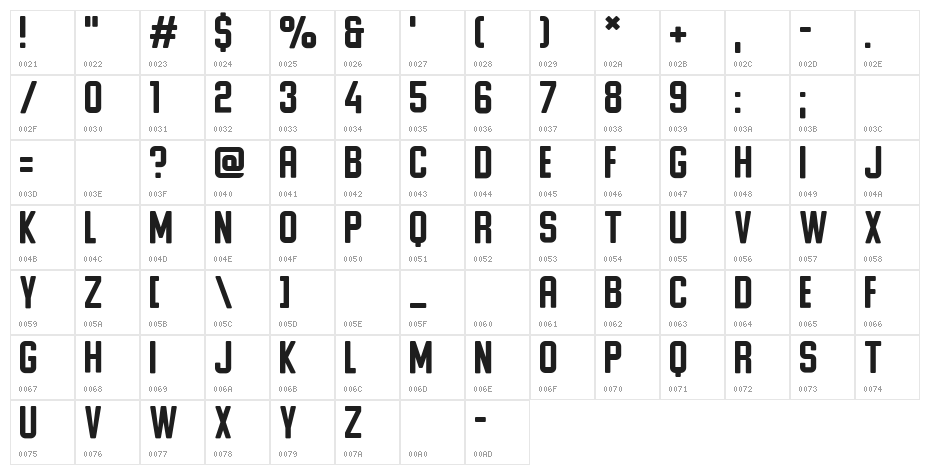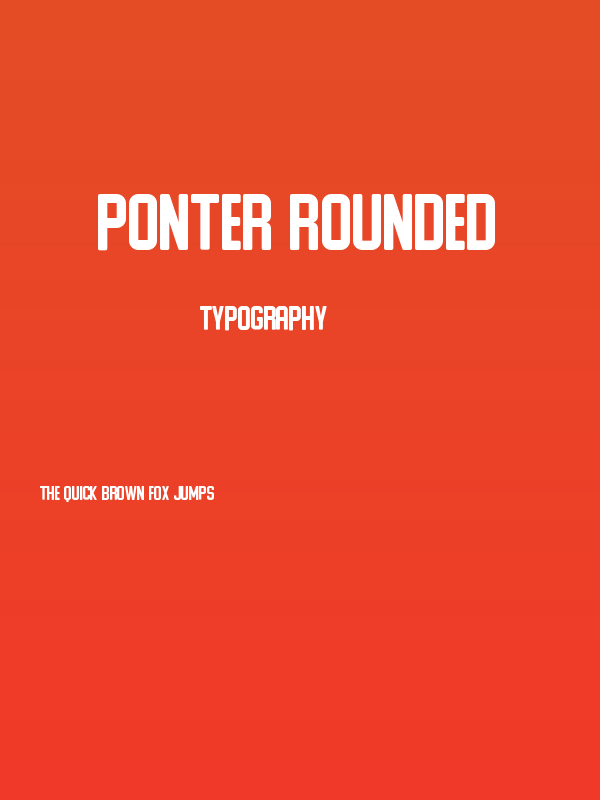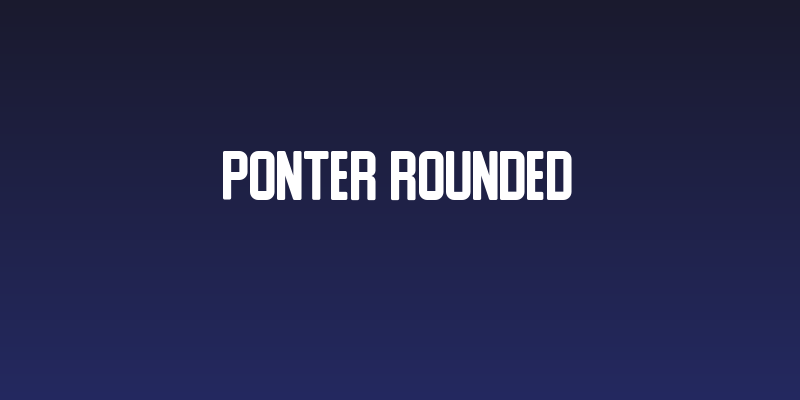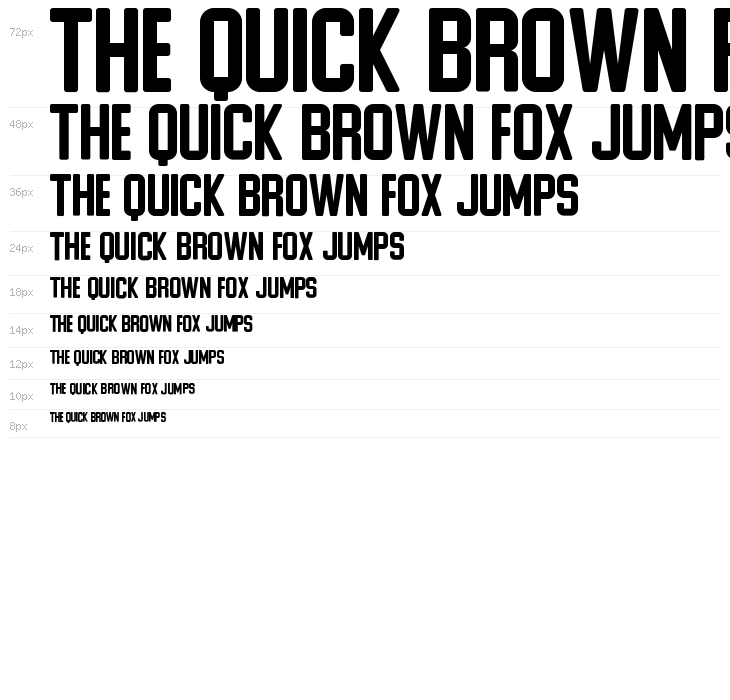
Ponter Rounded Font
Ponter Rounded Description
This font features a bold and rounded style, characterized by its thick strokes and smooth curves. The letters are uniformly wide, giving it a strong, impactful presence. The rounded edges soften the overall look, making it approachable while maintaining a modern aesthetic. The numbers and special characters follow the same design principles, ensuring consistency across all glyphs. This font is highly legible and versatile, suitable for various design applications. Its boldness makes it stand out, while the rounded corners add a friendly touch, balancing professionalism with approachability.
| Use Case | Headlines, Logos, Signage |
| Proposed Projects | Ideal for branding, signage, headlines, and any project requiring a bold, modern look. |